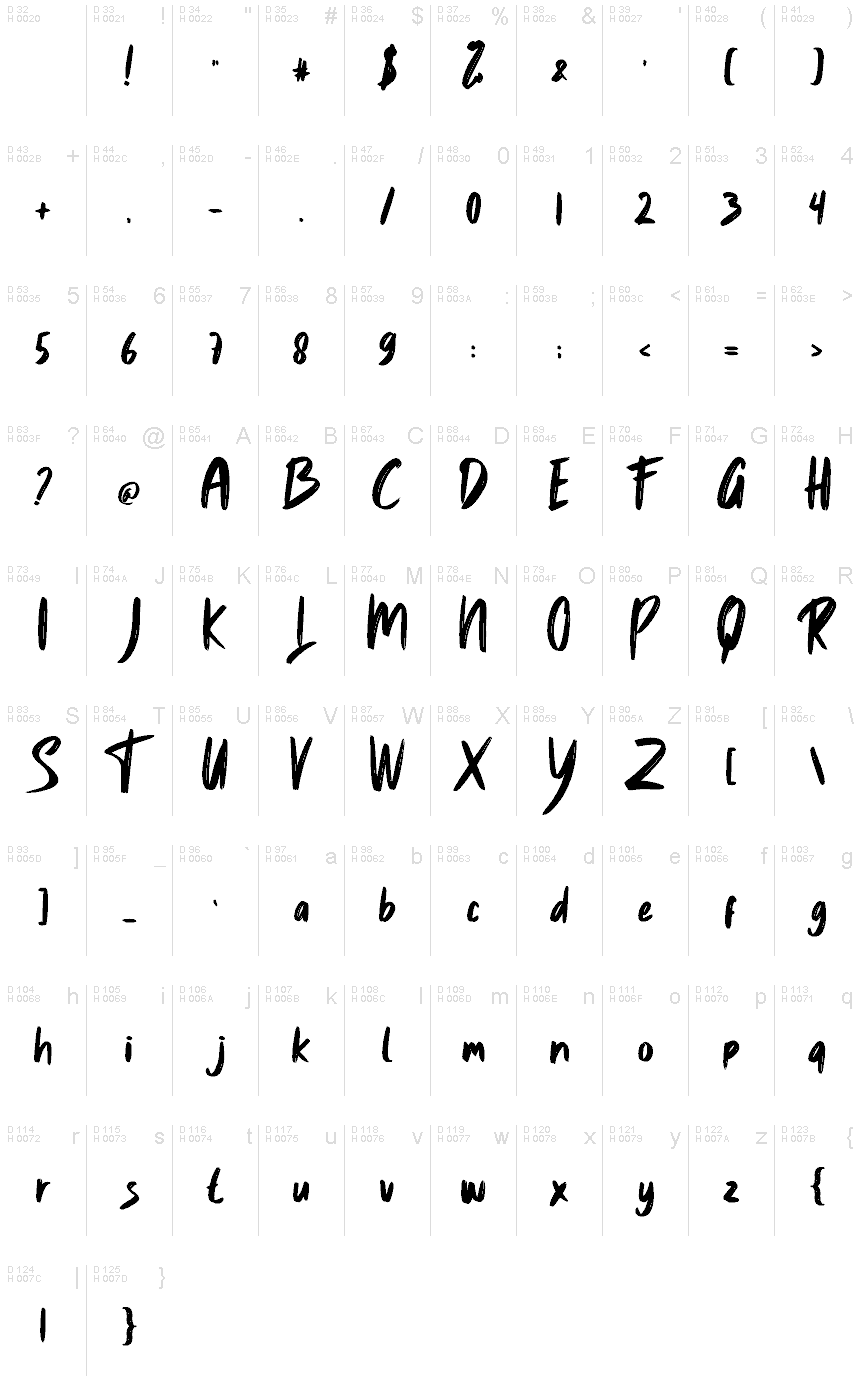
Daylike
Daylike is a brush script font designed by Skiiller Studio that embodies a modern, energetic style inspired by hand lettering and brush calligraphy.
The Daylike brush font is available in OTF format and is ideal for logo design, headlines, invitations, branding and stationery, poster design, magazine titles, wedding designs, packaging projects, and social media posts. The characters and alternates with different styles and ligatures make the perfect set that’s suitable for both personal and commercial purposes.
Daylike